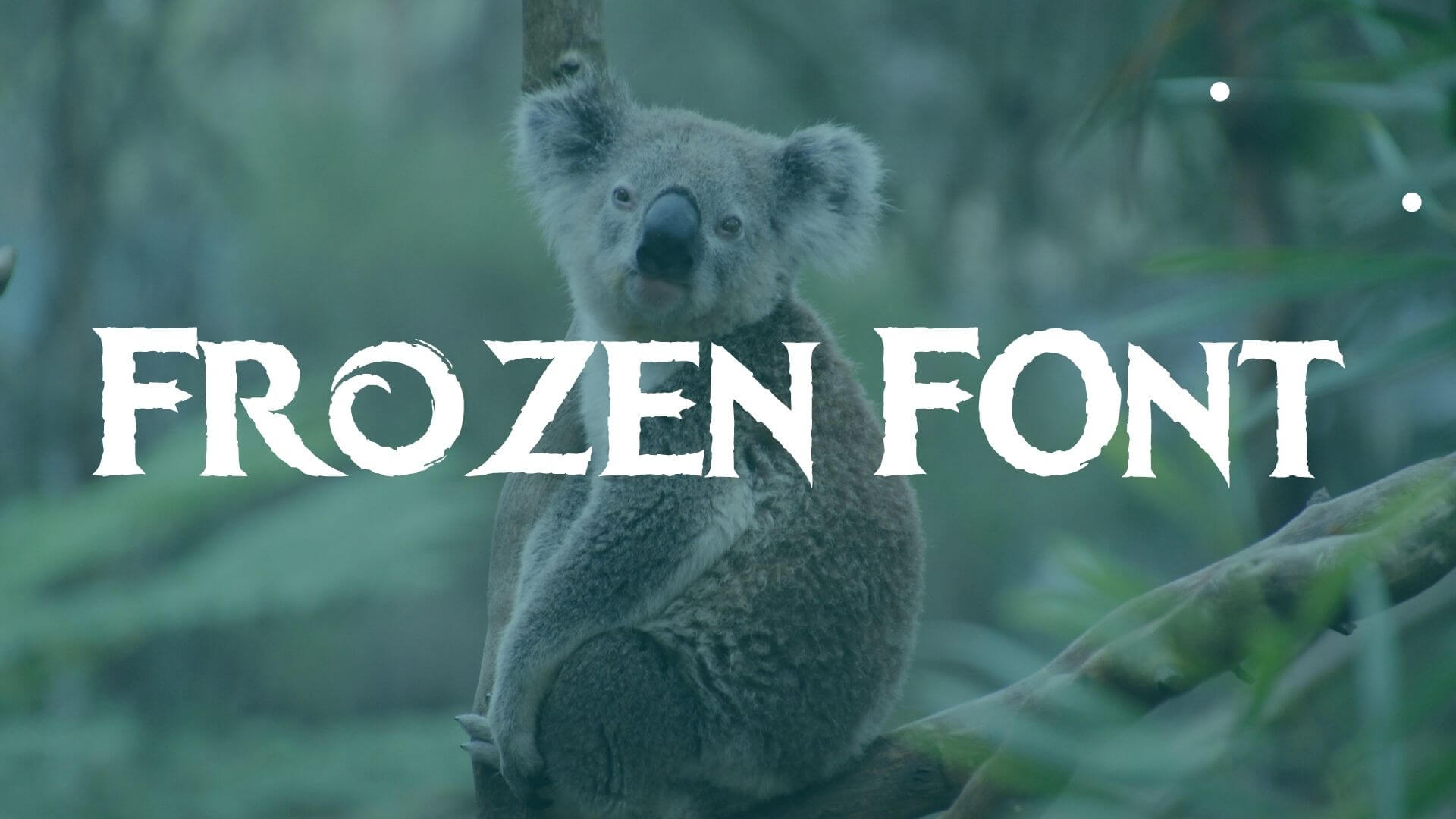
Frozen Font is the logo-based typeface that was used in the title of the famous American animated movie Frozen. Ice Kingdom Bold Font is the actual typeface that was used in this movie logo both of these fonts are identical.
This font contains some amazing characters along with some unique characters. Apart from the use in the logo of the movie this typeface was also inspired by people and designers and they used this font with ocean font and many more.
Frozen Font